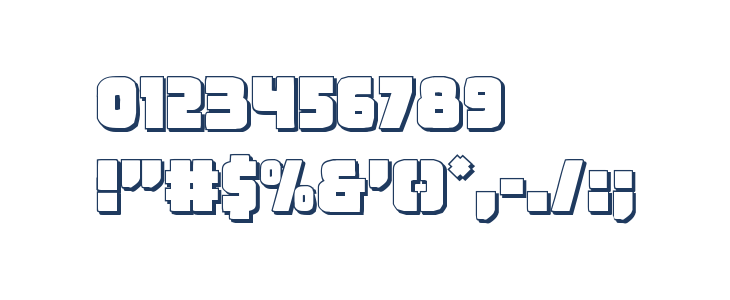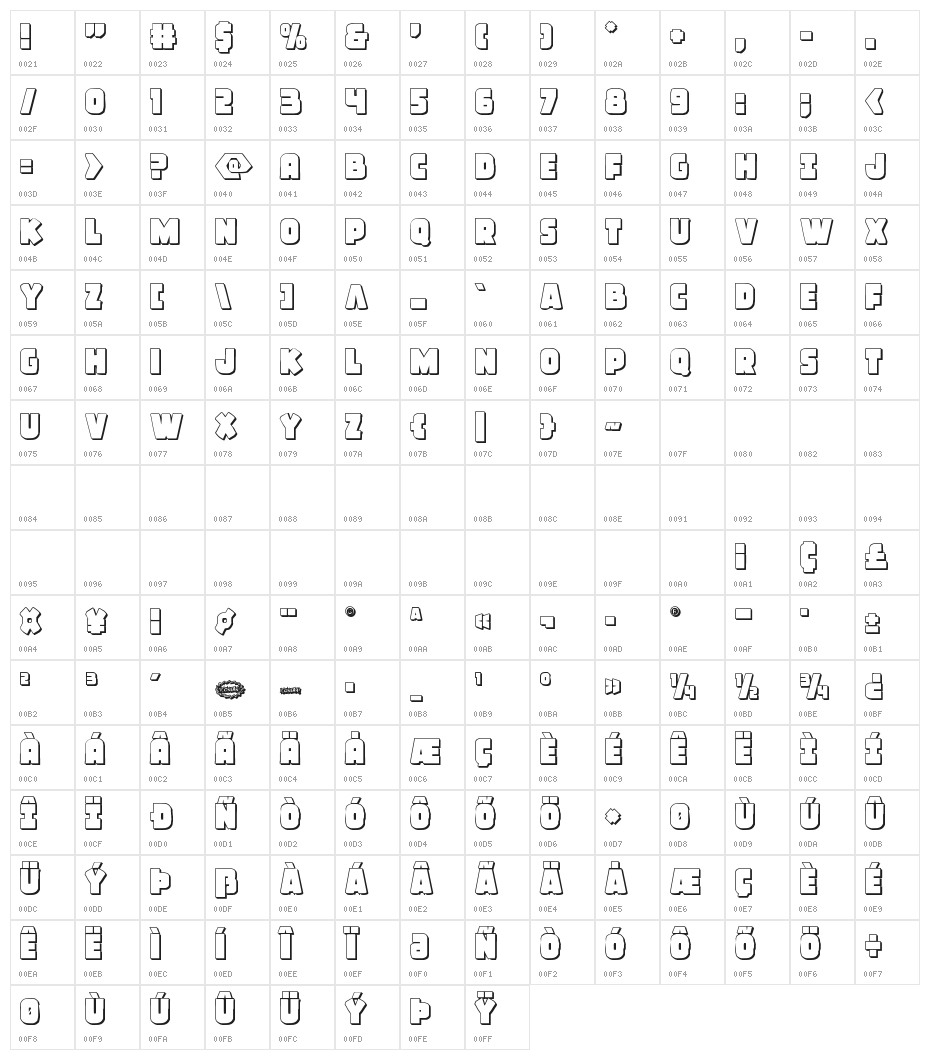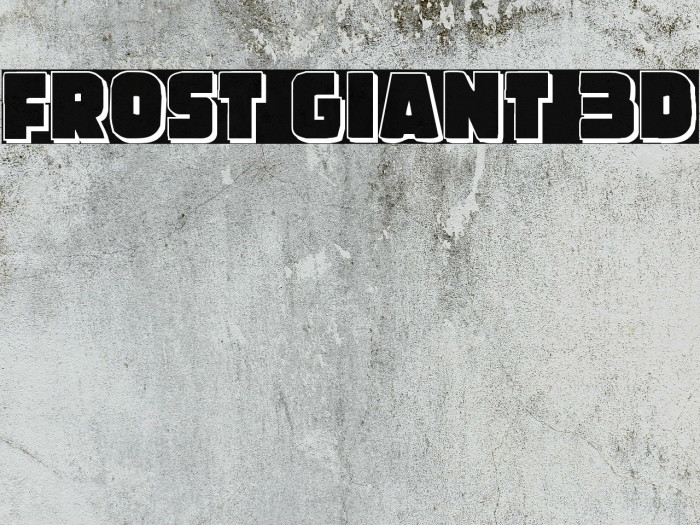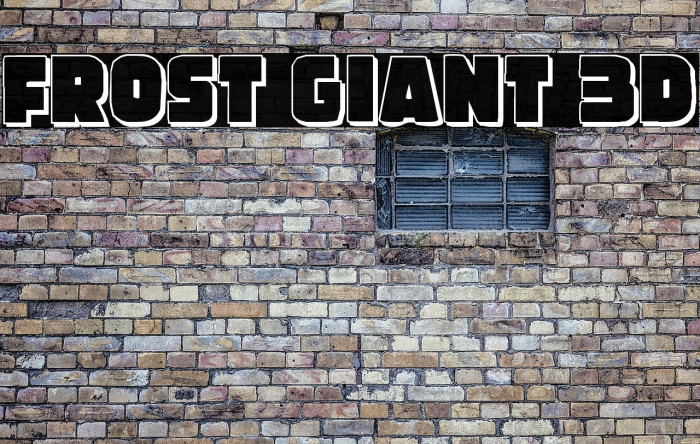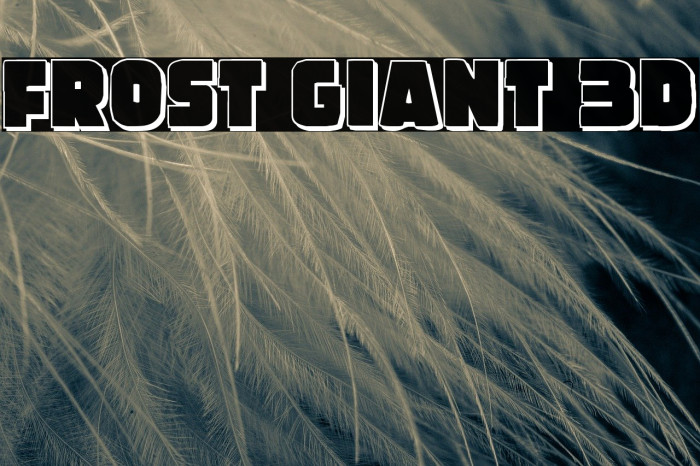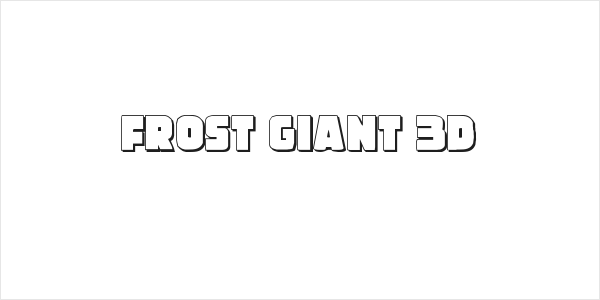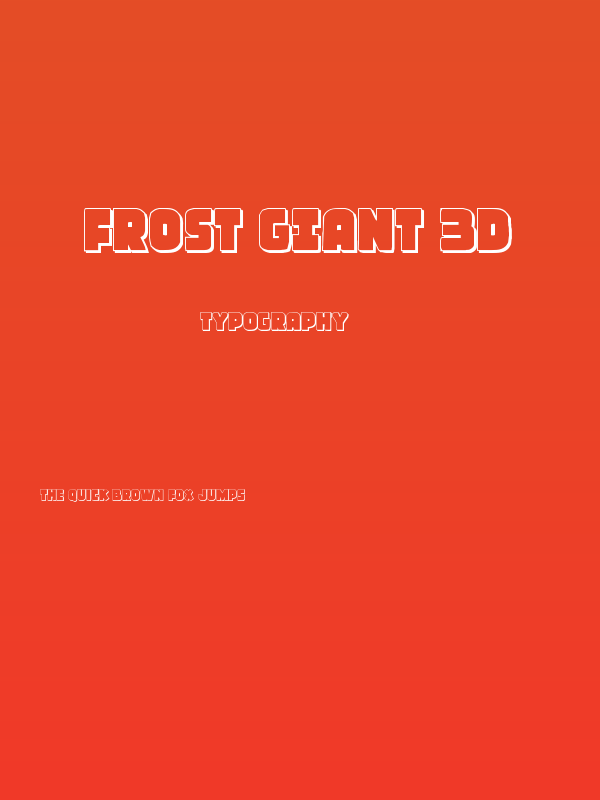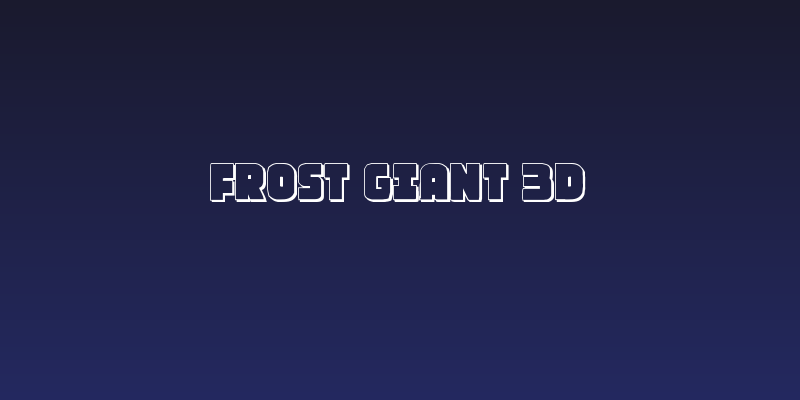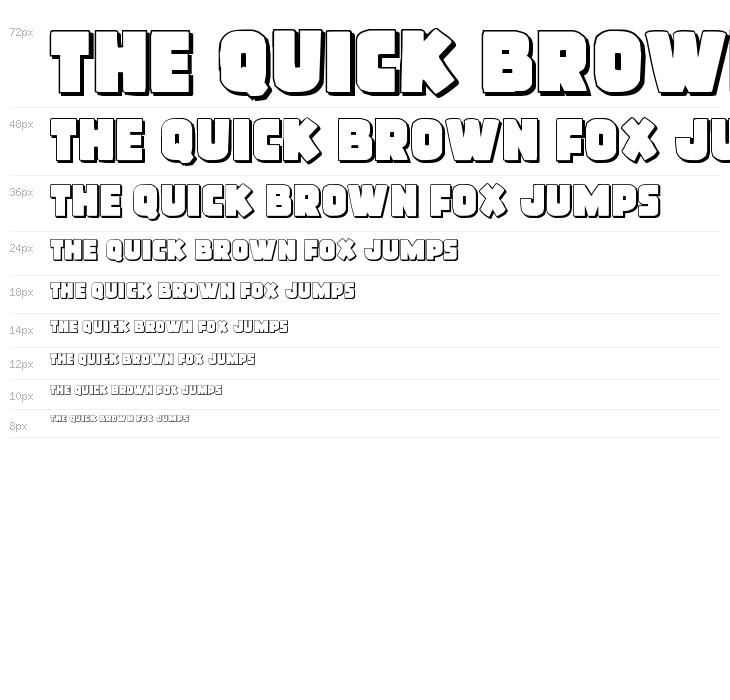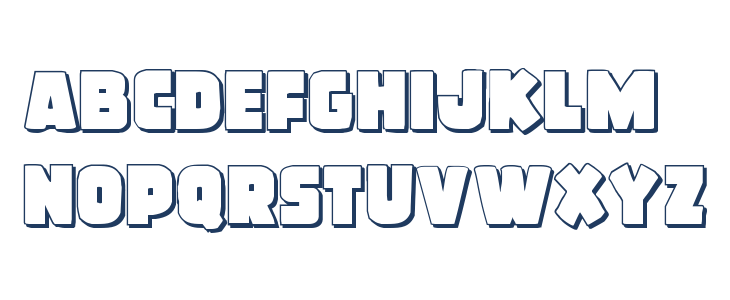
Frost Giant 3D Font
Frost Giant 3D Description
This font features a bold, three-dimensional style that gives each character a strong, impactful presence. The letters are blocky and robust, with a shadow effect that adds depth and a sense of solidity. The design is consistent across uppercase and lowercase letters, as well as numbers and special characters, maintaining a cohesive look. The font's playful yet sturdy appearance makes it ideal for projects that require a bold statement. Its unique 3D effect is achieved through the use of thick outlines and shadowing, which enhances its visibility and appeal.
| Proposed Projects | Ideal for posters, headlines, video game graphics, and any design needing a bold, eye-catching typeface. |